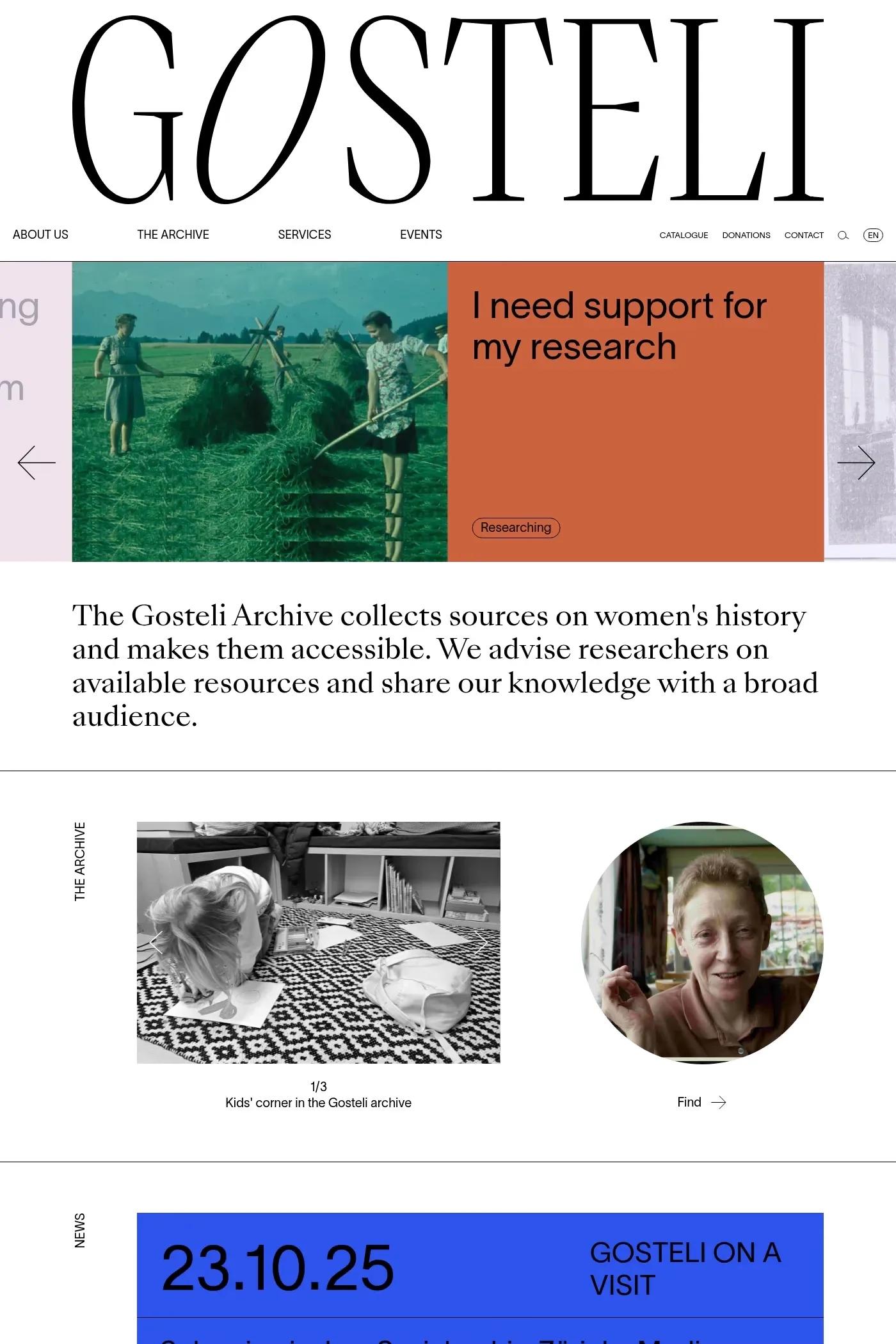
SangBleu is a serif typeface from Swiss Typefaces.
A1 features 1 website using SangBleu. It leans towards Photography, Typographic, and Lines design styles.